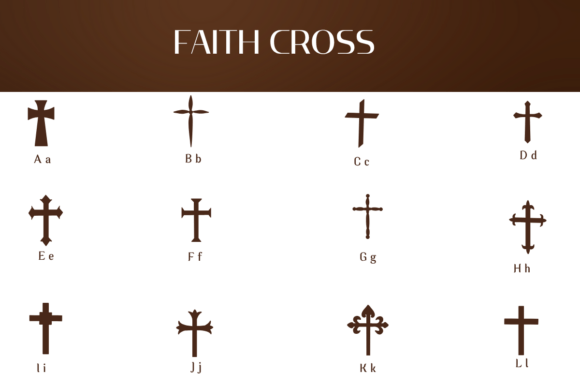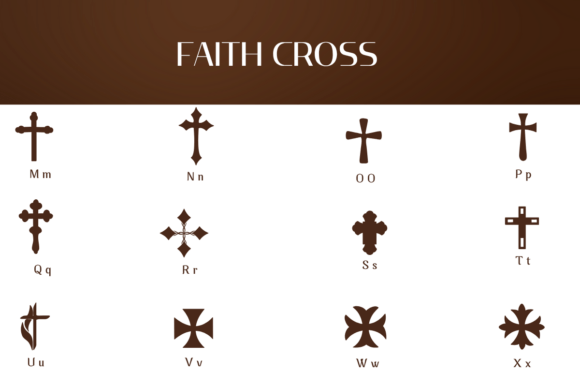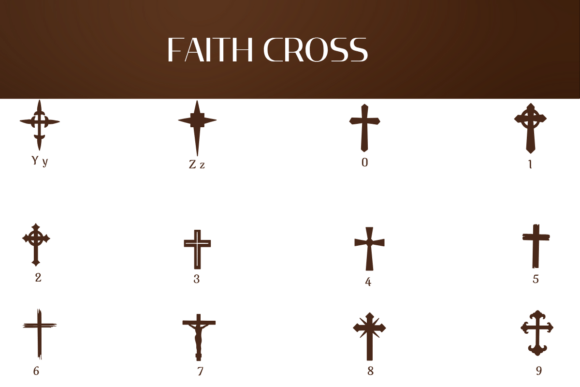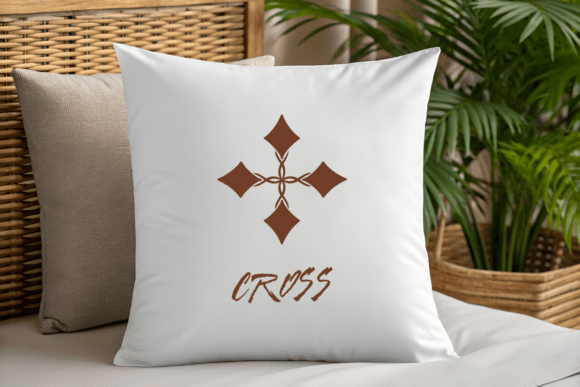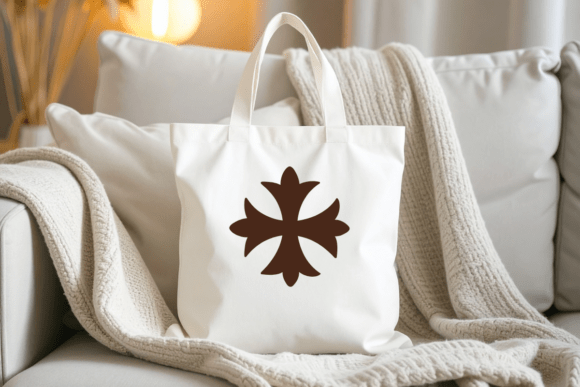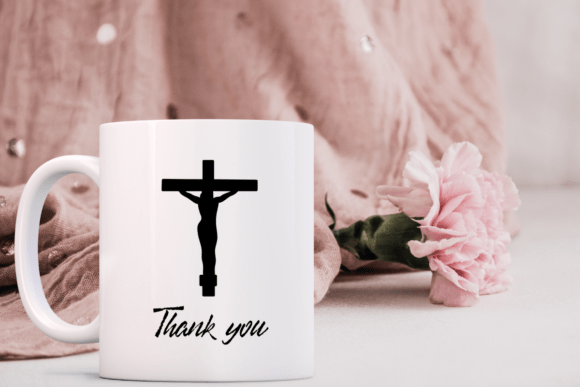
Introducing Faith Cross Font: Elevate Your Designs with Beautiful Christian Cross Illustrations
Are you a designer, crafter, or faith-based business owner looking for a versatile and elegant way to incorporate Christian cross symbols into your work? Look no further than the Faith Cross Font, a stunning dingbats font that offers a wide range of beautifully crafted cross illustrations. From traditional to stylized designs, this font is perfect for creating stunning church flyers, religious t-shirts, Bible journaling, Easter and Christmas cards, or spiritual decor.
A Font Rooted in Faith
The Faith Cross Font is more than just a collection of symbols – it’s a powerful visual resource that allows you to easily access clean, elegant cross symbols with just a keystroke. Whether you need minimal, ornate, or gothic variations, this font provides a wide range of options to suit your design needs. With Faith Cross, you can add a touch of faith and inspiration to your work, creating meaningful and impactful designs that resonate with your audience.
One of the most significant benefits of the Faith Cross Font is its versatility. This font can be used for a wide range of design projects, including:
- Church flyers and brochures: Create eye-catching promotional materials for your church or faith-based organization.
- Religious t-shirts and apparel: Design inspiring and meaningful clothing for your faith community.
- Bible journaling: Add beautiful cross illustrations to your Bible journaling pages, creating a unique and personalized reflection of your faith.
- Easter and Christmas cards: Create stunning holiday cards that showcase your faith and send a message of love and inspiration.
- Spiritual decor: Use the Faith Cross Font to create beautiful wall art, signs, and other decorative items for your home or office.
A Collection of Beautifully Crafted Cross Illustrations
The Faith Cross Font features a vast collection of Christian cross illustrations, carefully crafted to provide a range of styles and designs. From simple and minimalist to intricate and ornate, this font offers:
- Traditional cross designs: Classic and timeless, these crosses are perfect for those who appreciate simplicity and elegance.
- Stylized cross designs: Add a touch of modernity and creativity to your designs with these unique and artistic cross illustrations.
- Gothic cross designs: Create dramatic and striking designs with these ornate and intricate cross illustrations.
Why Choose Faith Cross Font?
So why choose the Faith Cross Font for your design needs? Here are just a few reasons:
- High-quality designs: Each cross illustration is carefully crafted to ensure a high level of quality and detail.
- Versatile: Use the Faith Cross Font for a wide range of design projects, from church flyers to Bible journaling.
- Rooted in faith: This font is designed to inspire and uplift, providing a powerful visual resource for faith-based designers and crafters.